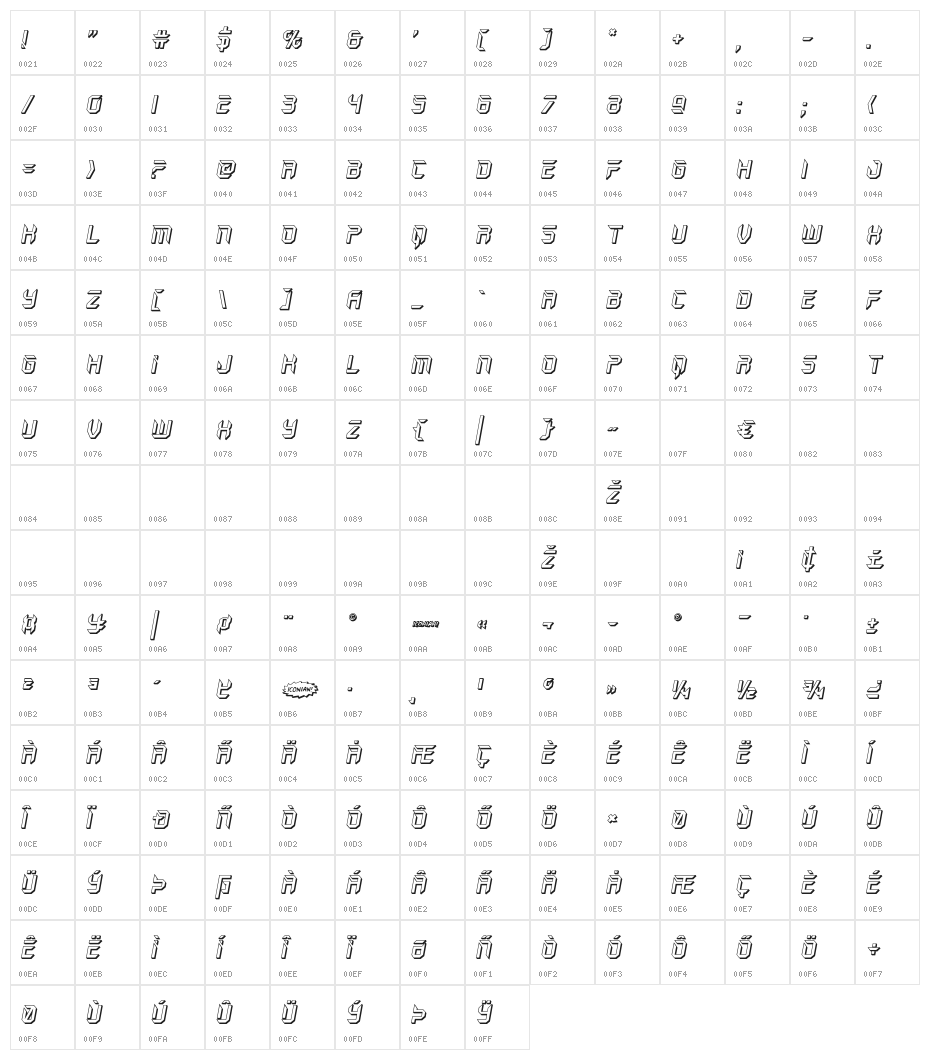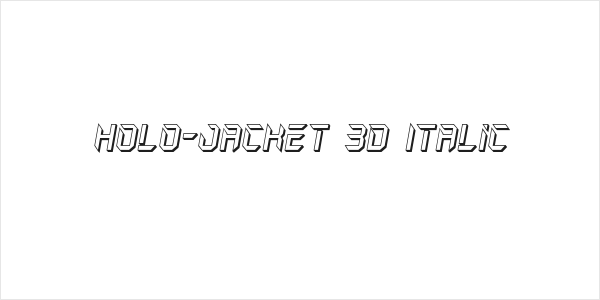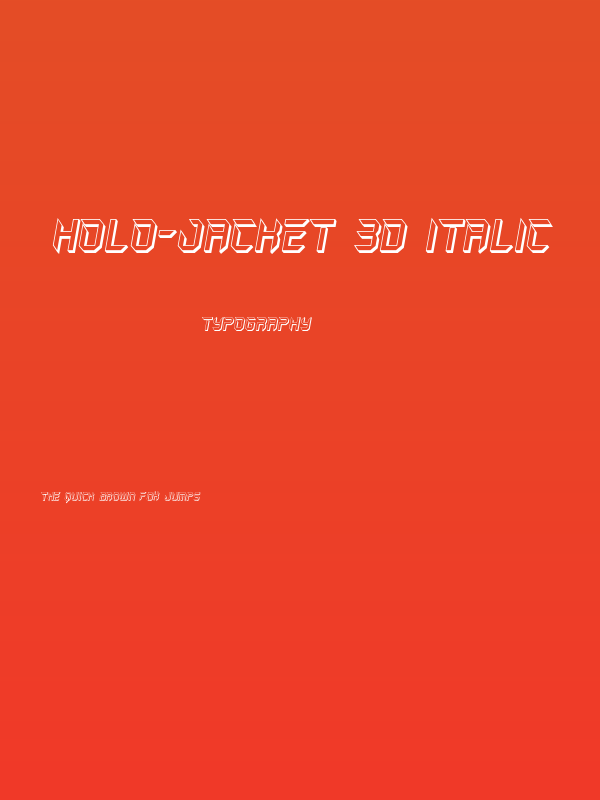
Holo-Jacket 3D Italic Font
Holo-Jacket 3D Italic Description
This font features a bold, three-dimensional design with a futuristic and angular aesthetic. The characters are outlined with a shadow effect, giving them a holographic appearance. The uppercase and lowercase letters maintain a consistent geometric style, with sharp edges and a dynamic slant that enhances the italicized look. The numerals and special characters follow the same design principles, ensuring uniformity across all glyphs. This font's unique style makes it stand out, ideal for projects that require a modern and edgy feel.
| Proposed Projects | Ideal for sci-fi themed posters, video game titles, tech branding, and digital artwork. |